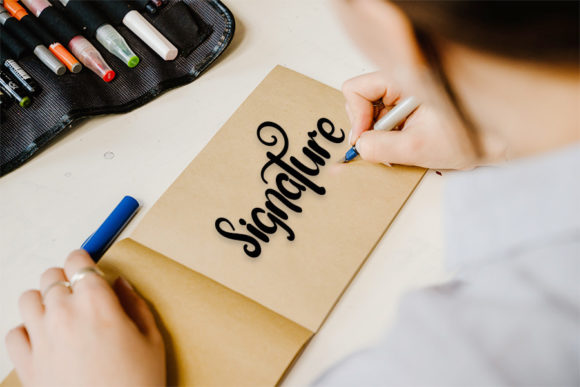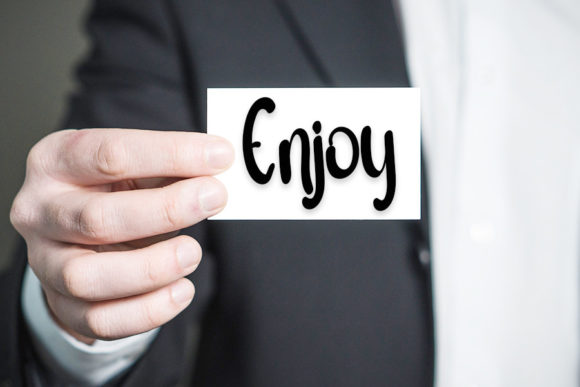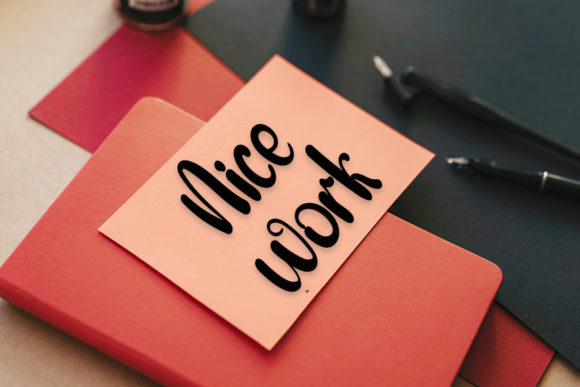
Introduction to Monthana Font
Have you ever found yourself in the midst of a creative project, pouring your heart and soul into a design, only to be hindered by the perfect font? That’s where Monthana Font comes in – a friendly handwritten font that’s sure to become your new go-to design resource.
With its classy calligraphic influences and fresh, contemporary feel, Monthana Font is the perfect addition to any high-quality design project. Whether you’re working on a free download or a paid commission, this font is sure to elevate your work and leave a lasting impression.
But what truly sets Monthana Font apart is its PUA encoding, allowing you to access all the amazing glyphs and ligatures with ease. This means you can achieve a transparent background or create a beautiful, layered design with ease – making it a valuable asset for designers of all levels.
Key Features of Monthana Font
- High-quality, professional font perfect for creative projects requiring a modern and elegant touch.
- Perfect design resource for graphic designers, artists, and creatives looking to add a touch of sophistication to their work.
- Unique, handcrafted design elements make Monthana Font stand out from other free fonts, offering a distinctive aesthetic.
Honest Review: Monthana Font
I recently had the opportunity to work with the Monthana Font, and I must say it’s a fantastic addition to any designer’s toolkit. This free download is a high-quality resource that’s perfect for creative projects.
- ✨ High-quality design: The Monthana Font is beautifully crafted with a clean and modern aesthetic.
- ✨ Transparent background: The font’s transparent background makes it easy to layer over images or use on complex designs.
- ✨ Versatile: The Monthana Font is suitable for a wide range of creative projects, from branding to editorial content.
- ⚠️ Limited character set: The Monthana Font may not include all the characters you need for your project.
- ⚠️ Not ideal for small text: The font’s design may not be suitable for small text sizes, where the characters can become difficult to read.
Overall, I’m impressed with the Monthana Font. It’s a great design resource that’s perfect for designers looking for a high-quality, free font. With a little creativity, you can use the Monthana Font to create stunning designs that stand out from the crowd.
The Monthana Font is a high-quality design resource available for free download. It’s perfect for creative projects that require a unique and stylish touch. With its transparent background, you can easily customize it to fit your design needs.
To get the most out of the Monthana Font, use it in combination with other design elements, such as images and shapes. Experiment with different font sizes, colors, and styles to create a unique and eye-catching design.
The Monthana Font is perfect for creative projects such as logos, business cards, social media graphics, and presentations. It’s also great for personal projects, such as blog posts, resumes, and newsletters.